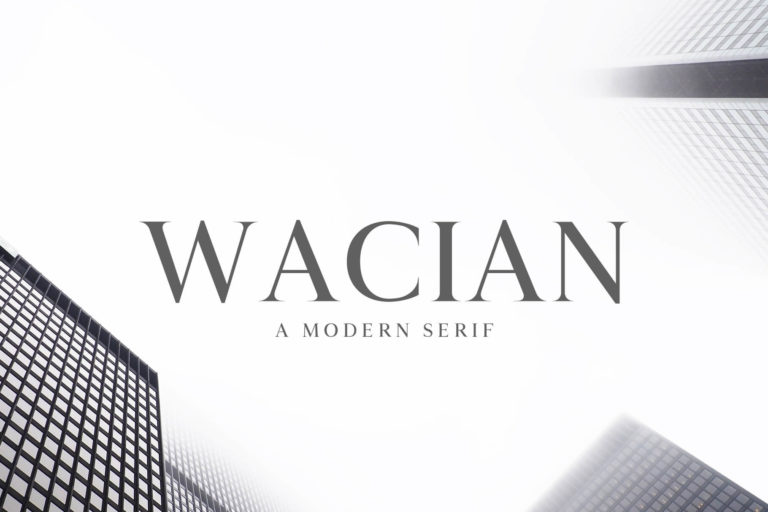
- Wacian Serif Font Family
Wacian is a modern serif font that comes in 3 different weights, making it a good pick for many design jobs. It includes all the standard letters and symbols and characters for languages other than English. This font is quite flexible. You can use it to write headlines that catch the eye. If you’re making posters for an event, Wacian’s different styles can help your poster stand out.
When it comes to branding, choosing the right font is key, and Wacian serif font can give your brand a fresh and modern feel. If you’re working on packaging, your font must be readable and appealing. Wacian does this well, making it a good choice for all kinds of packaging.
In presentations, the clear, sharp letters of this font family can help get your point across. For logos, you want something that represents your brand well, and Wacian’s unique style can be just the right fit.
- Font Weight: Regular, Light, Round and Bold
Wacian Font Features:
- Uppercase Letters
- Lowercase Letters
- Non English Characters ( Latin Supplement + Latin Extended A)